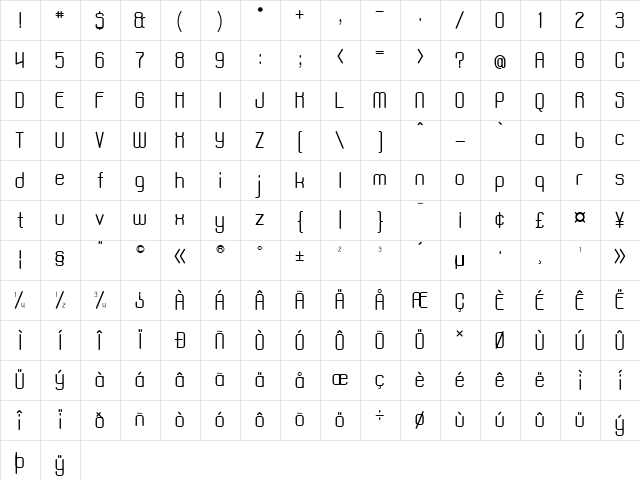
aposiopesis normal Regular
Foundry: rimando nillo jr.
Designer: dondon nillo
Design Context for aposiopesis normal
aposiopesis normal is a composed and adaptable typeface that performs quietly and consistently across a wide range of design contexts.